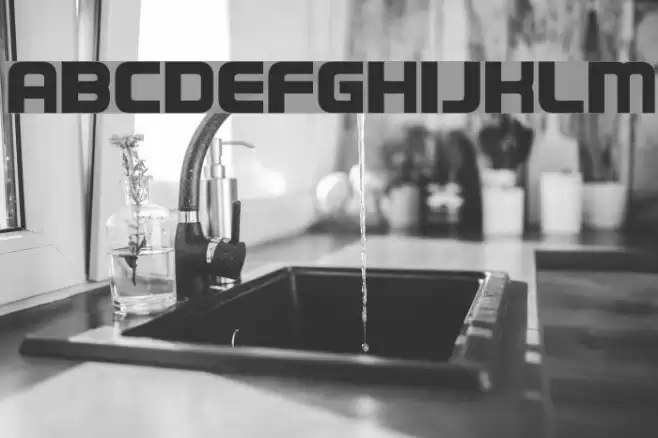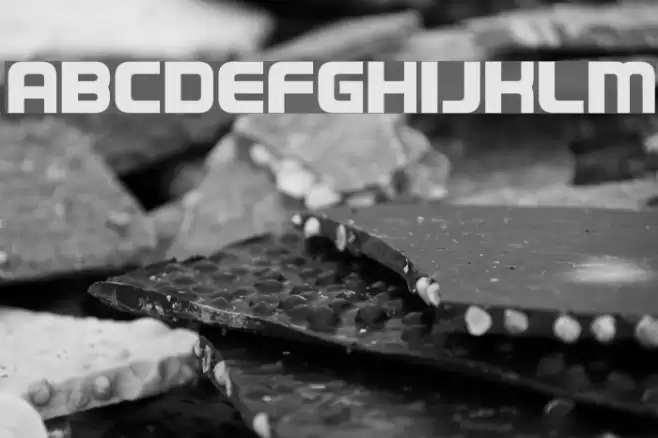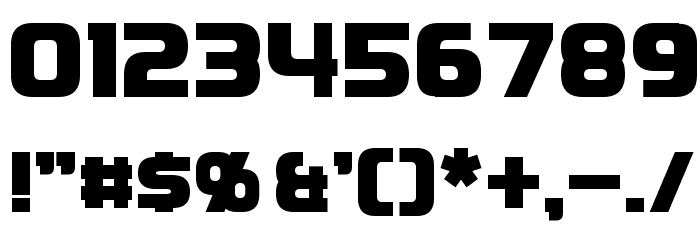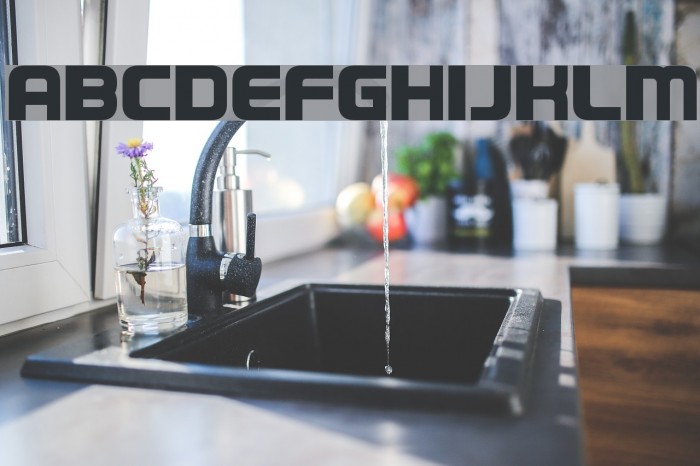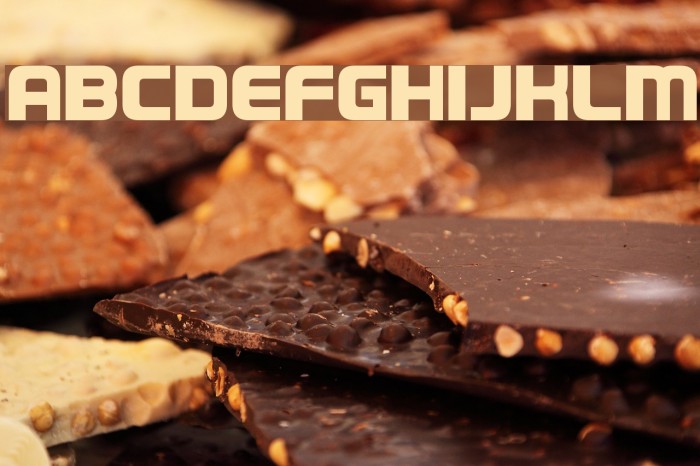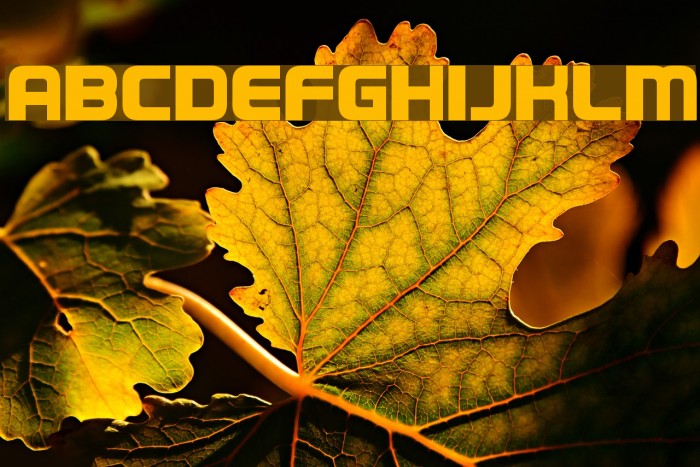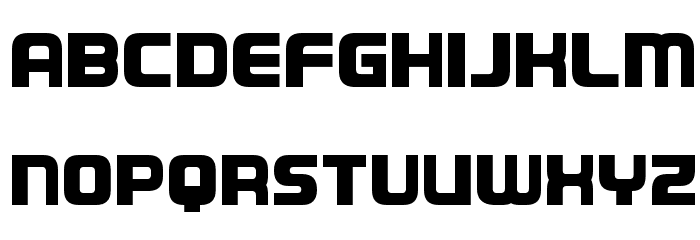
Domelen Bold Font
Domelen Bold Description
This font features a bold, geometric design with a strong presence. The characters are uniformly thick, giving it a robust and modern appearance. The edges are slightly rounded, which softens the overall look while maintaining a sense of strength and stability. The uppercase and lowercase letters are consistent in style, with a uniform height that enhances readability. The numerals and special characters follow the same design principles, ensuring a cohesive look across all text elements. This font is ideal for making a bold statement in any design project.
A bold, geometric font with rounded edges and a modern, strong appearance from Uncategorized fonts.
- Proposed Projects: Ideal for branding, headlines, posters, and any design requiring a strong visual impact.